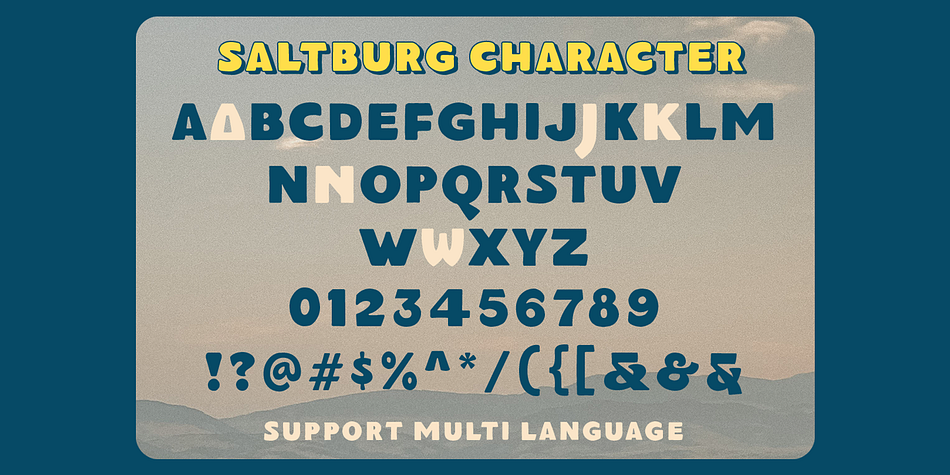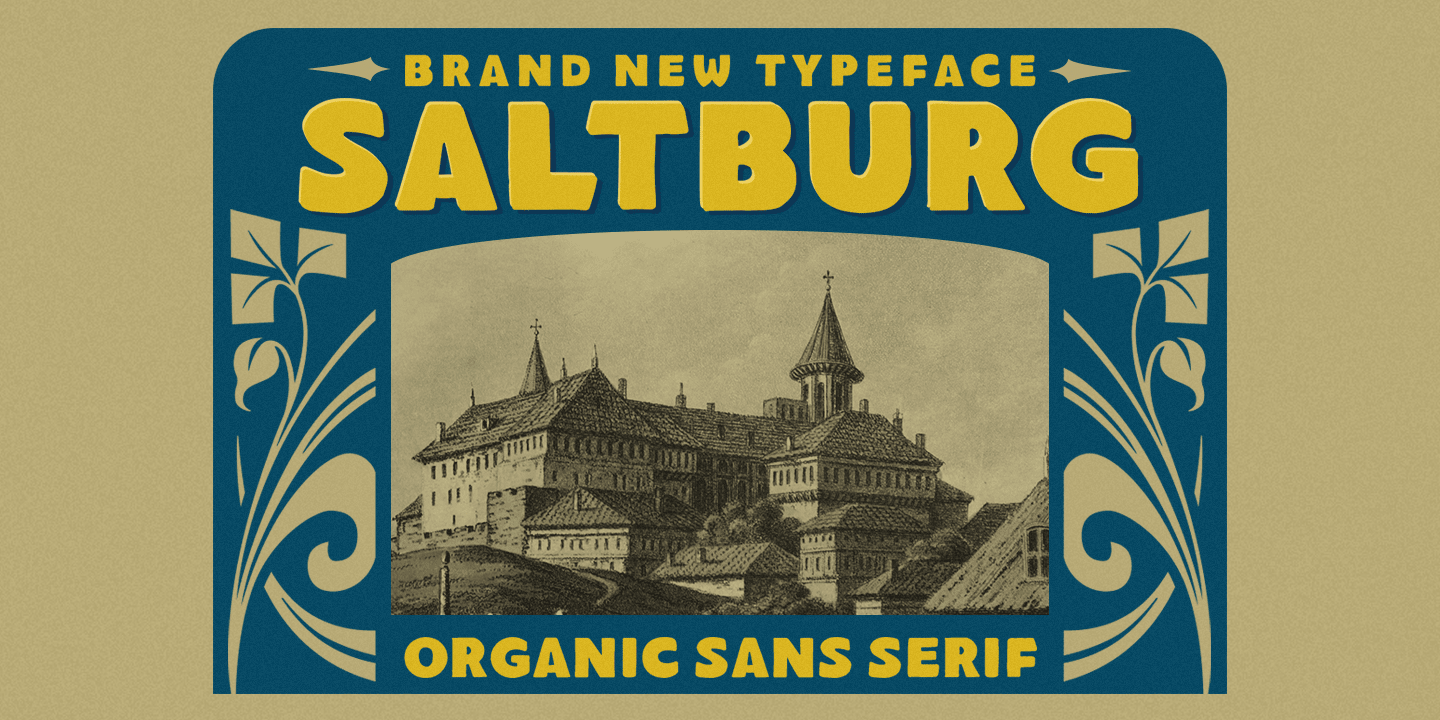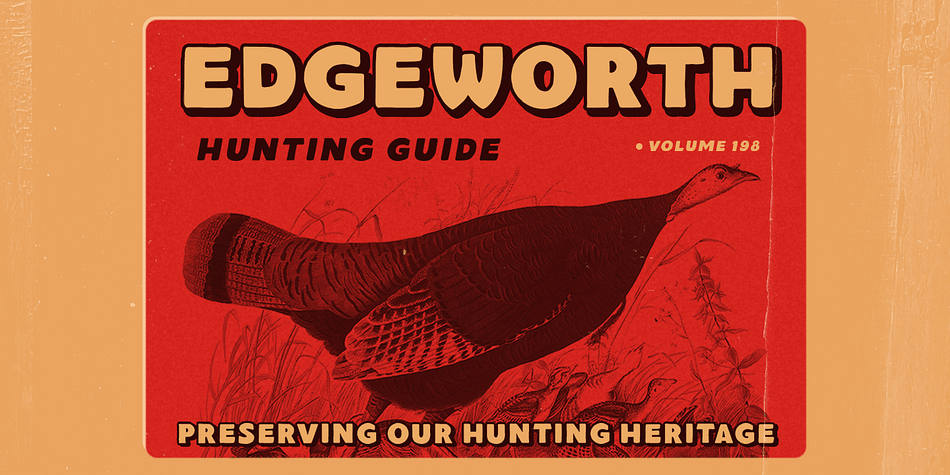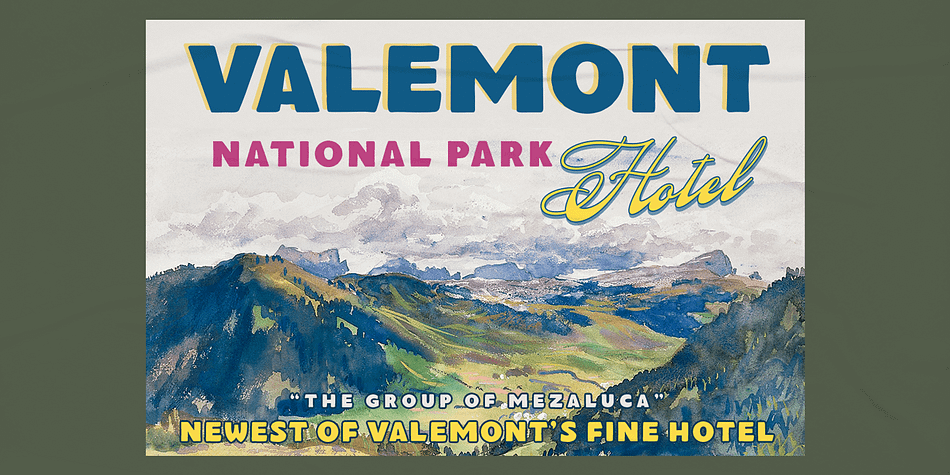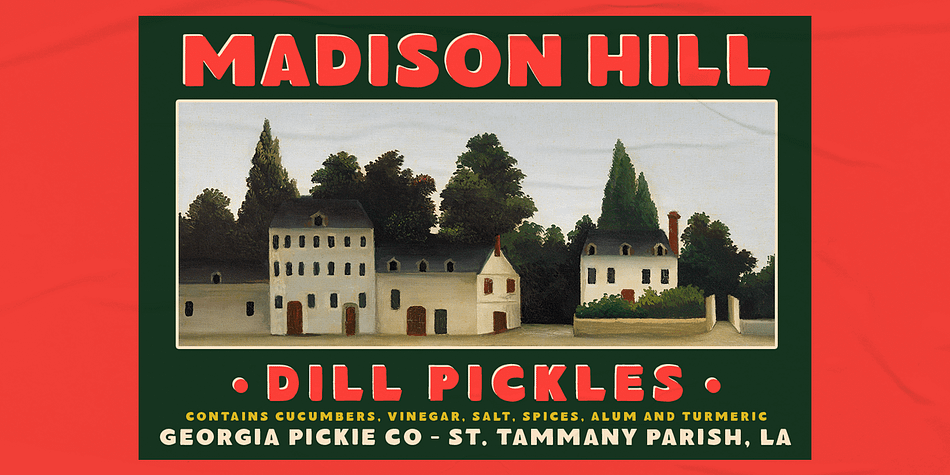
SALTBURG
Designed by Hendry Juanda, Saltburg is a display sans and hand display font published by Letterhend Studio.
Introducing, Saltburg, an strong and bold sans serif with a touch of vintage look and feel. This type of font perfectly made to be applied especially in logo, headline, signage and the other various formal forms such as invitations, labels, logos, magazines, books, greeting / wedding cards, packaging, fashion, make up, stationery, novels, labels or any type of advertising purpose.
- multilingual alternates
- swashes and ligatures